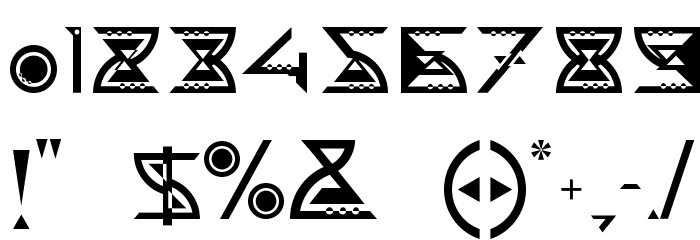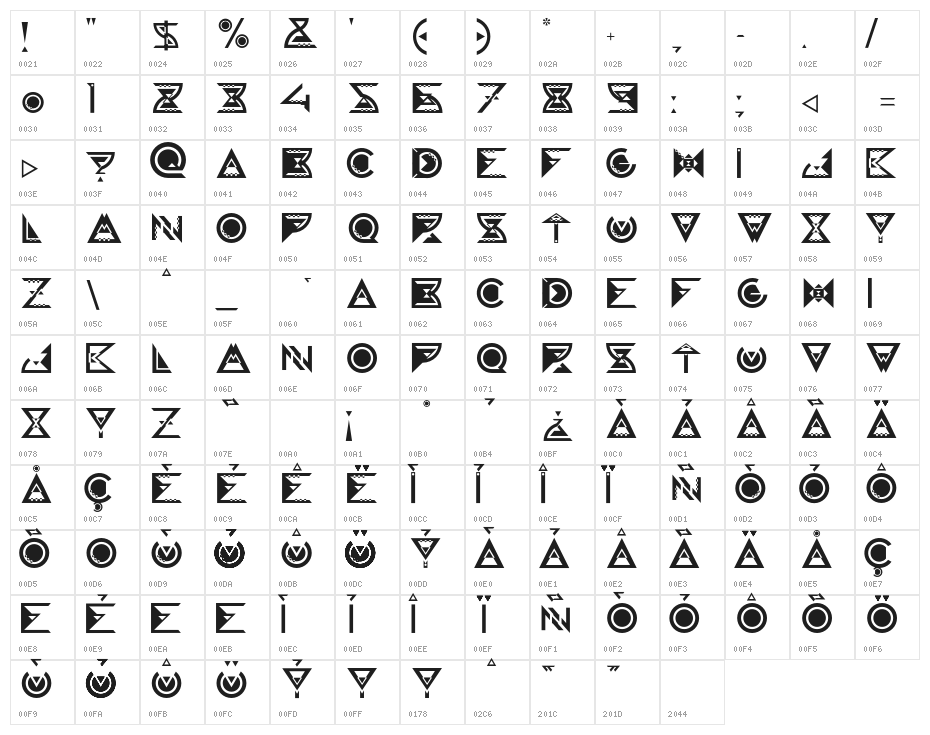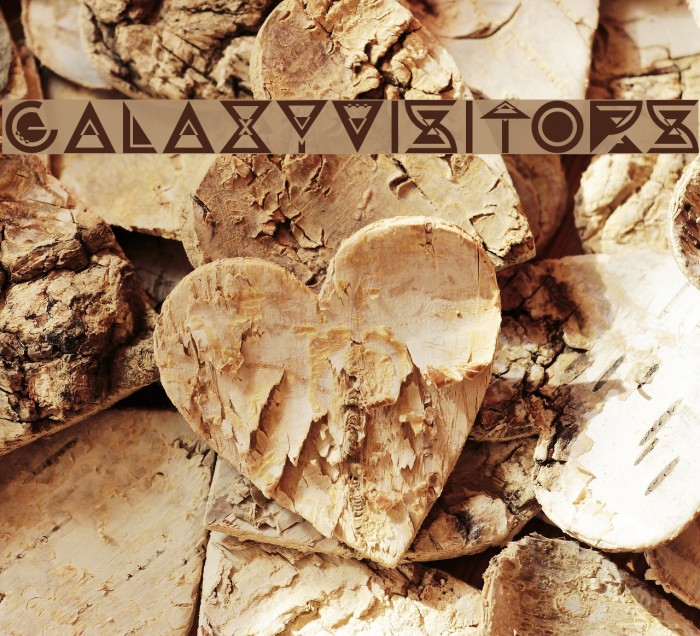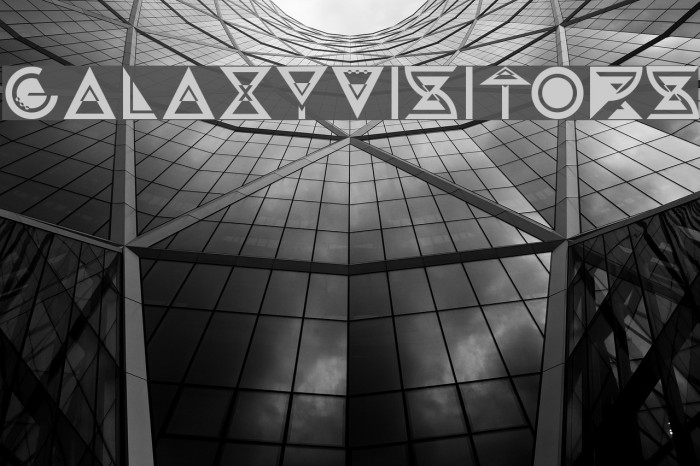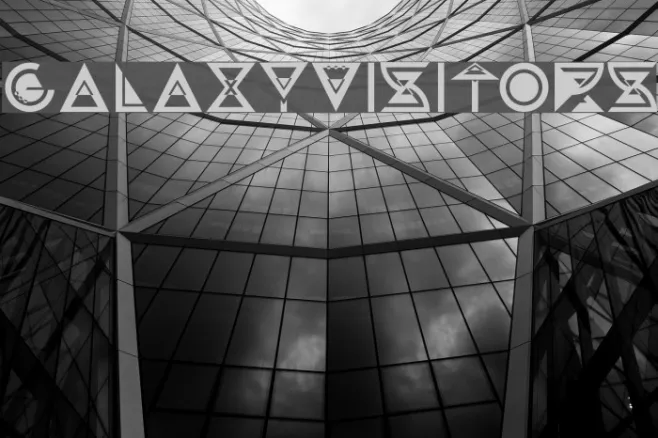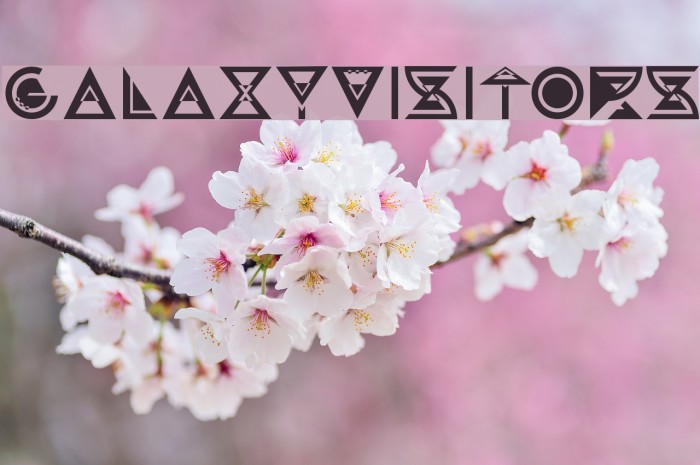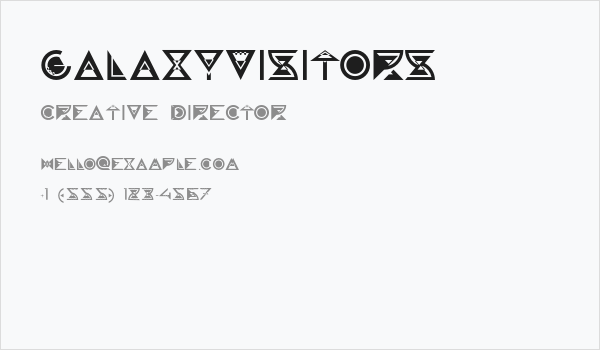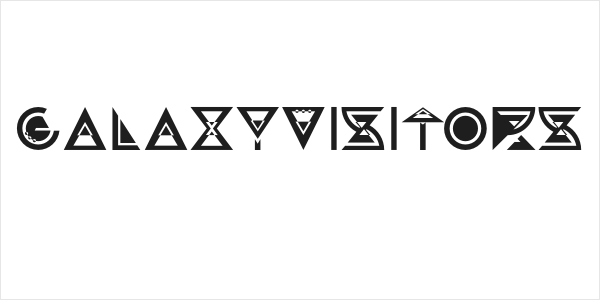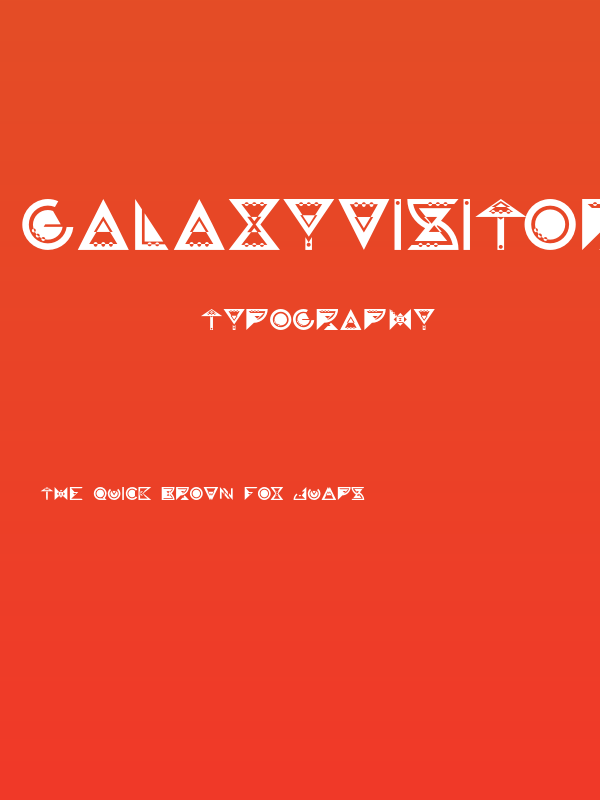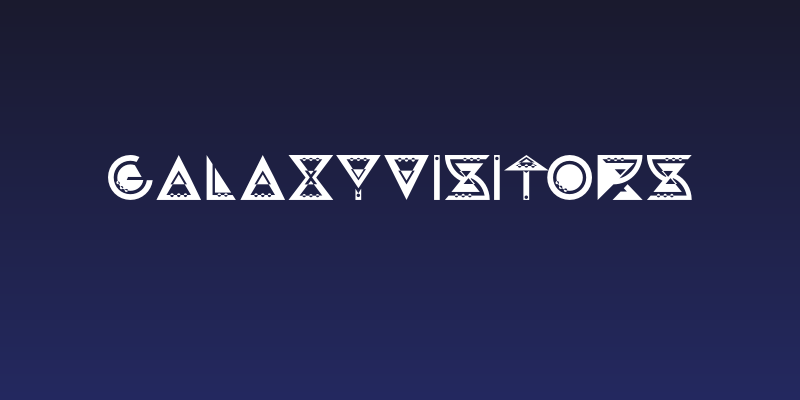
GalaxyVisitors Font
GalaxyVisitors Description
This font features a highly decorative and futuristic style, characterized by geometric shapes and intricate patterns within each letterform. The design incorporates sharp angles and bold lines, creating a sense of movement and energy. The uppercase and lowercase letters maintain a consistent aesthetic, with unique embellishments that give each character a distinct appearance. The numbers and special characters follow the same design principles, ensuring a cohesive look across all elements. This font is visually striking and demands attention, making it ideal for creative and bold design projects.
| Overall Style | Futuristic, Decorative |
| Proposed Projects | Ideal for sci-fi themed posters, video game titles, album covers, and branding for tech companies. |